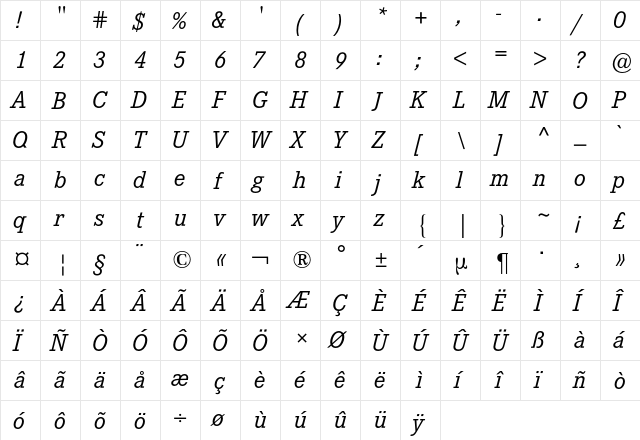
Corporate E BQ Regular Font Preview
Corporate E BQ Regular
Corporate E BQ Regular Font Details
Design Context for Corporate E BQ Typeface
Corporate E BQ offers clean, dependable letterforms without strong stylistic allegiance, making it a practical choice for designers who need flexibility.